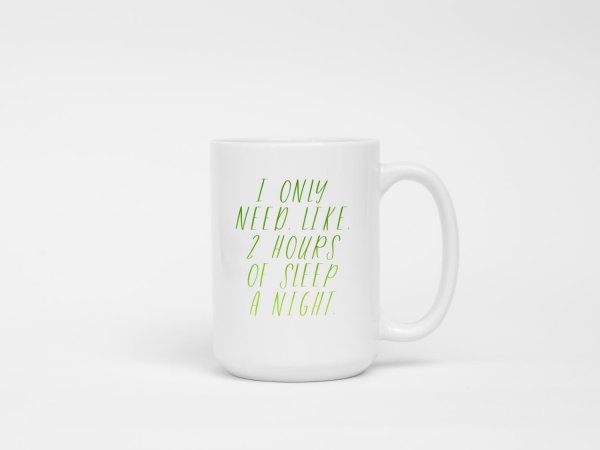
Ethanol Sans Font
Ethanol Sans Font is a skinny, tall, leaning all-caps sans font, perfect for logo design, print design, & more!
Ethanol Sans Font is a tall, skinny, leaning all-caps sans font, perfect for logo design, print design, & more!  Ethanol Sans is a great fit for a more masculine brand, or something requiring minimalist qualities.